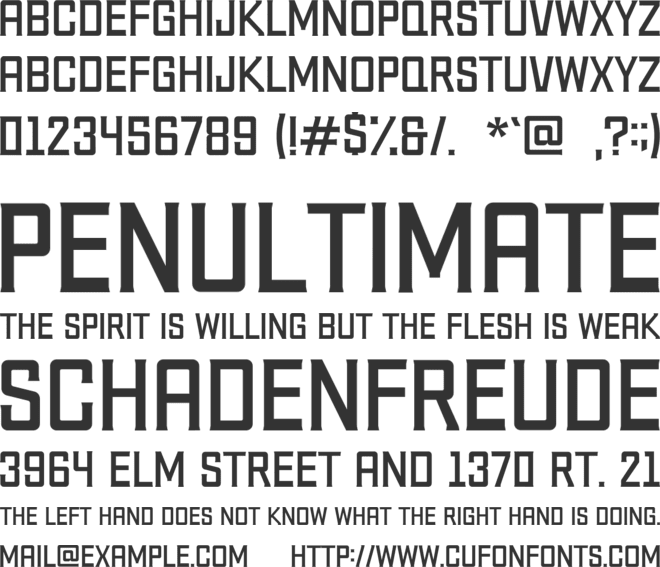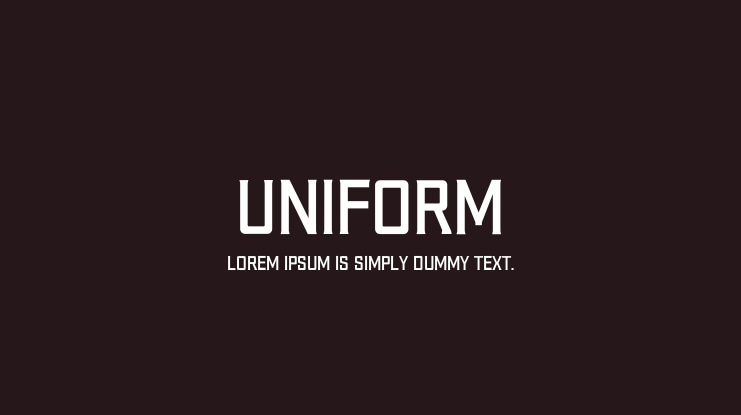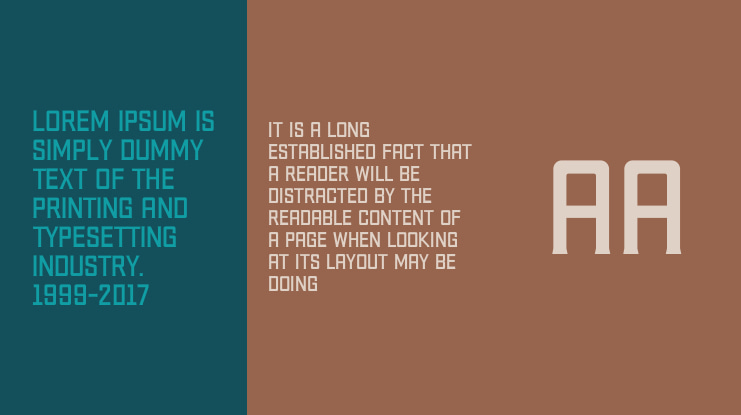
Uniform Font Family
Uniform is a typeface inspired by sport and industry, designed to allow you a balance of versatility and structure in your designs.